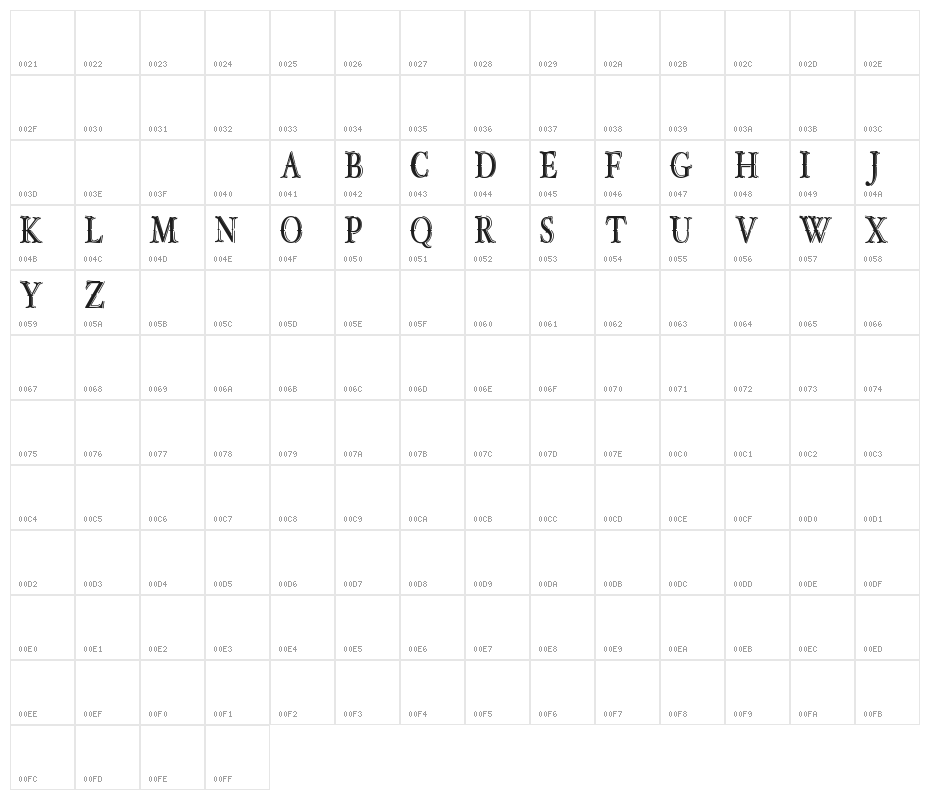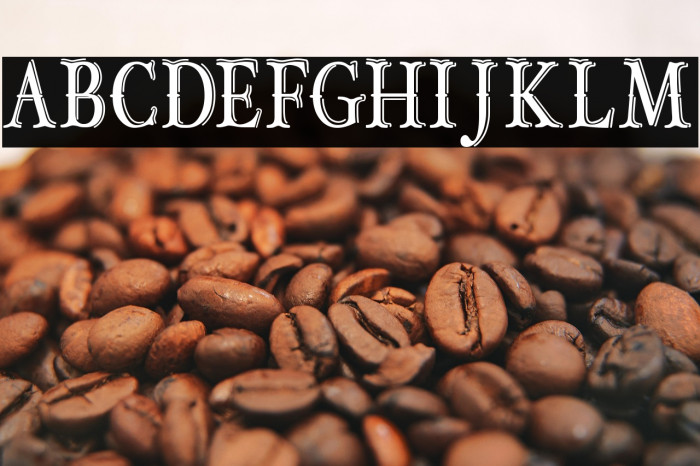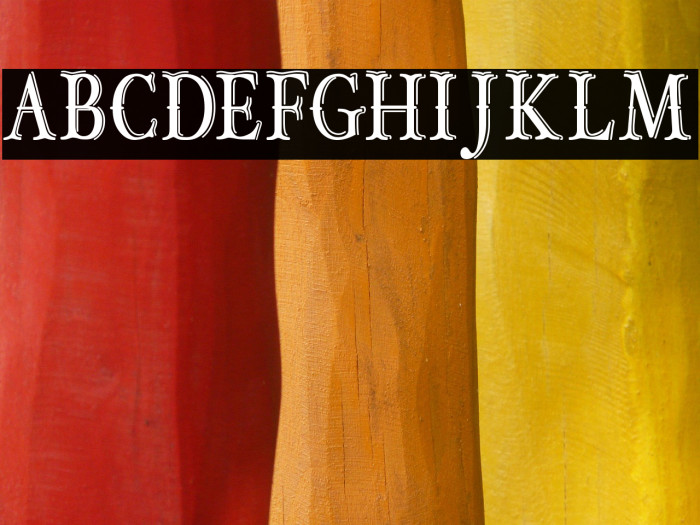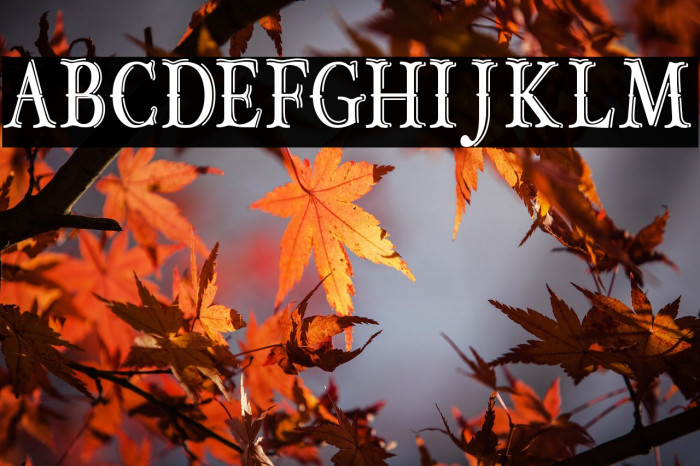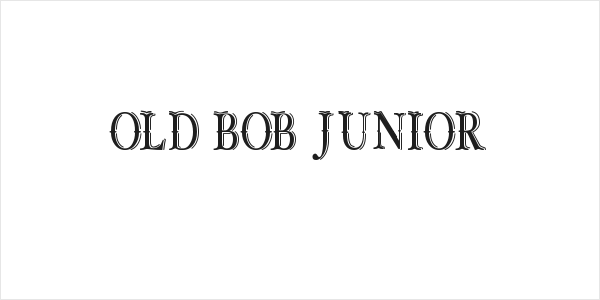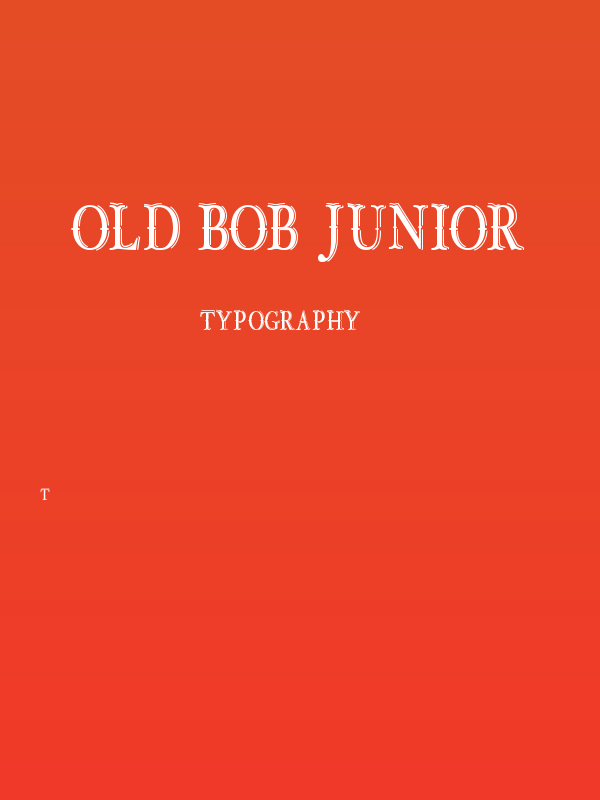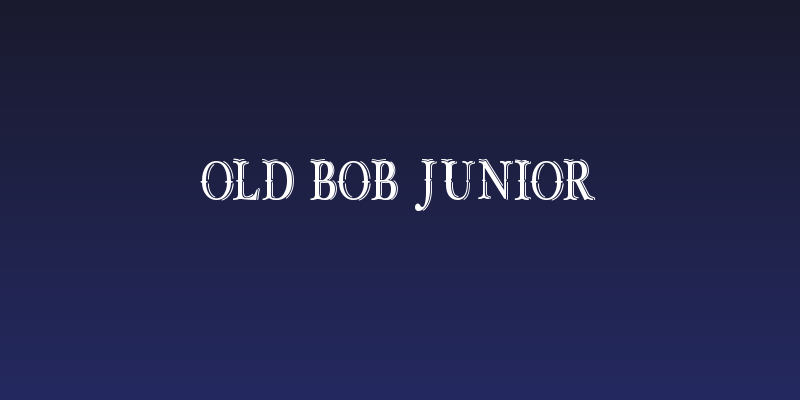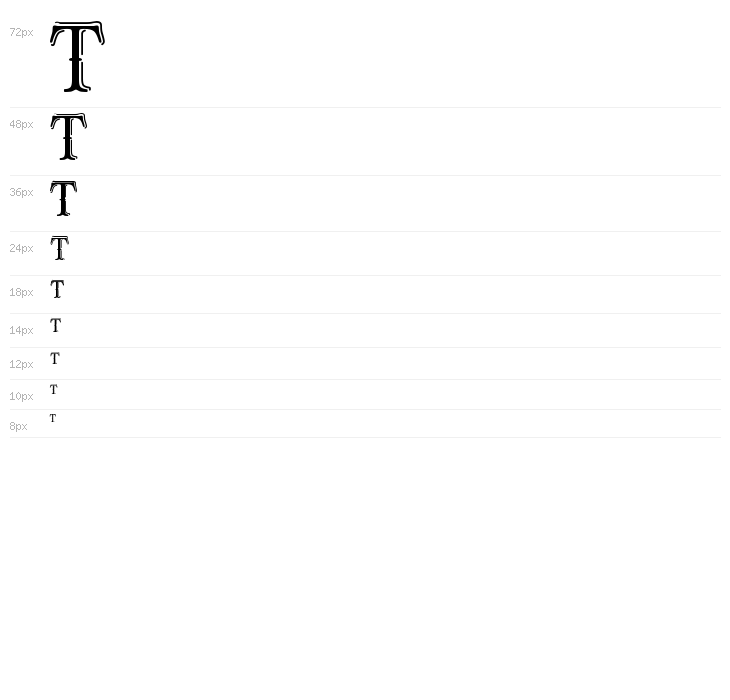
OLD BOB JUNIOR Font
OLD BOB JUNIOR Description
This font features a bold and decorative style with intricate detailing on each letter. The uppercase letters are characterized by their ornate serifs and a slightly condensed form, giving them a strong and impactful appearance. The strokes vary in thickness, adding a dynamic contrast that enhances the visual interest of the text. The overall design is reminiscent of vintage or classical typefaces, making it suitable for projects that require a touch of elegance and sophistication. The font's unique style makes it stand out, perfect for creating eye-catching headlines or logos.
Overall StyleVintage
Proposed ProjectsIdeal for vintage-themed posters, book covers, branding, and logo design.